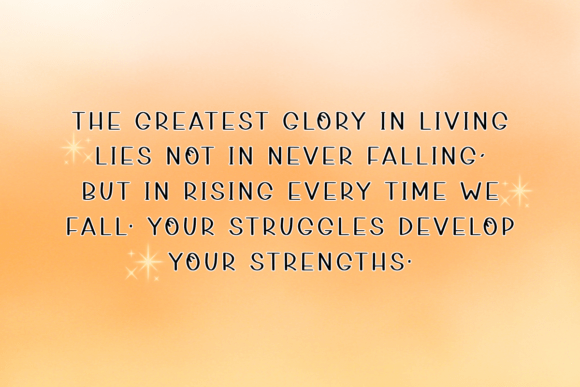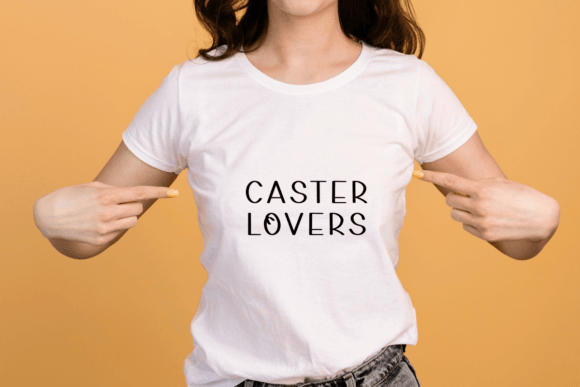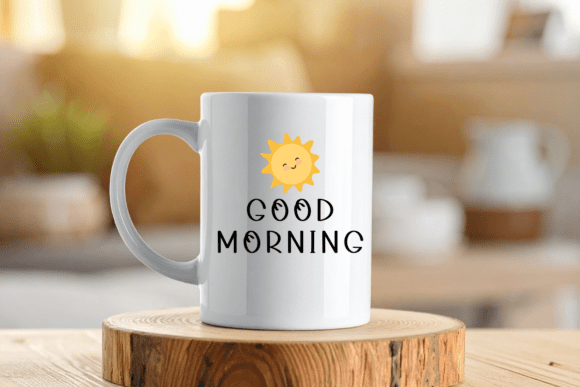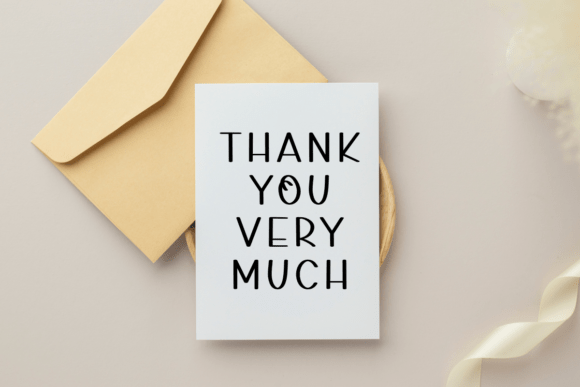
The Perfect Blend of Whimsy and Style
Who else remembers the feeling of rummaging through their grandmother’s old scrapbook, mesmerized by the intricate doodles and handwritten notes that adorned its pages? It’s that same sense of nostalgia and charm that designers are looking for in their next project. And that’s where the Butter Sweet Font Font comes in – a delightful handwriting font that captures the essence of natural, playful vibes.
| 👤 Author | Letterayu |
This font is more than just a pretty face; it’s a versatile tool that can elevate your designs from cute to captivating. Whether you’re crafting a custom invitation, creating a planner spread, or designing a tote bag, the Butter Sweet Font Font will add a touch of warmth and personality to your work. By incorporating this font into your creative toolbox, you’ll be able to add a unique twist to your projects and make them truly stand out.
Buteer Sweet Font Key Features
- Font Family: Buteer Sweet Font is a unique, hand-drawn font family with a sweet and playful touch.
- Character Set: Includes a wide range of characters, including uppercase and lowercase letters, numerals, and punctuation marks.
- Size and Resolution: Designed to be highly legible at various font sizes, with optimal results at 24-48 points and 300-600 DPI resolution.
- Unique Characteristics: Features a distinctive, hand-drawn aesthetic with subtle imperfections and nuances that add to its charm.
Buteer Sweet Font Review
First off, let me say that I was immediately drawn to the playful, whimsical feel of the Buteer Sweet Font ✨. The font’s rounded edges and bubbly texture give it a youthful, energetic vibe that’s perfect for creating eye-catching headings and titles. I love how it can add a touch of personality to any design project.
One of the standout features of this font is its versatility ✨. It’s suitable for both digital and print media, and it looks great in a variety of sizes and styles. I’ve used it for social media graphics, logos, and even signage, and it always looks great.
While the Buteer Sweet Font is generally well-designed, there are a few limitations to be aware of ⚠️. One issue is that the font can be quite dense, which can make it difficult to read at smaller sizes. Additionally, some of the characters may not render perfectly in certain fonts or environments.
Overall, I’m really impressed with the Buteer Sweet Font ✨. While it may have a few limitations, its unique personality and versatility make it a great addition to any designer’s toolkit. I’d definitely recommend it for projects that require a fun, playful touch.
- Unique, playful design
- Versatile and suitable for digital and print media
- Great for headings and titles
- Can be used for logos, social media graphics, and signage
- Might be difficult to read at smaller sizes
- Some characters may not render perfectly in certain fonts or environments
Buteer Sweet Font Font is ideal for creating eye-catching headings, titles, and logos. It’s also great for adding a touch of elegance to your designs. Some common use cases include:
- Restaurant and cafe menus
- Event and party invitations